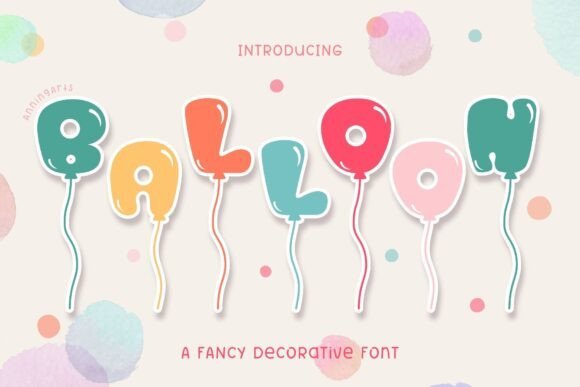
Pop into the World of Creativity with Balloon Font
Remember that moment when you were planning a birthday party for your little one and wanted to make the invitations truly special? You spent hours browsing through font options, trying to find the perfect one to match the festive atmosphere. And then, it hit you – the perfect combination of fun, colorful, and playful that would make the invitations stand out. This is where the Balloon Font comes into play, designed to bring a whimsical touch to your projects.
This adorable bubble-style balloon letter set is a game-changer for designers looking to add a playful twist to their designs. With the Balloon Font, you can create birthday invitations, party decorations, greeting cards, and kids’ designs that are sure to capture attention. Each letter mimics a colorful balloon with a cute string, making it perfect for adding a touch of magic to your projects.
- Unique Characteristics: Balloon Font features a distinctive, playful design with rounded shapes and a soft, whimsical feel, making it ideal for creative and informal applications.
Designer Review: Balloon Font
Overall, I’d say the Balloon Font has some really interesting characteristics that could work well for certain projects. ✨ The first thing that caught my attention is its unique, playful feel. The font is quite whimsical and could add a lot of personality to a design. I also appreciate how the font’s rounded shapes can help to soften the overall look of a text.
- ✨ The Balloon Font’s unique personality makes it perfect for projects that need a bit of whimsy, such as children’s books, party invitations, or social media graphics.
- ✨ The font is also quite versatile and can be used for both digital and print designs, making it a great choice for designers who work on a variety of projects.
However, I do have a few concerns about the font’s limitations. ⚠️ Firstly, the Balloon Font may not be the best choice for projects that require a more formal or professional tone. The font’s playful nature may come across as unprofessional in certain contexts.
- ⚠️ The font’s rounded shapes may also make it difficult to read at smaller font sizes, which could be a problem for projects that require a lot of text.
- ⚠️ Additionally, the font’s unique shape may not be easily legible for people with certain visual impairments, which is something to consider when choosing a font for a design.
Overall, I think the Balloon Font is a fun and creative choice for designers who are looking to add some personality to their projects. However, it’s essential to consider the context and potential limitations of the font before making a final decision.
Balloon Font is commonly used for:
- Wedding invitations and decorations.
- Business presentations and marketing materials.
- Illustrations and graphics for social media and websites.
Tips for Getting the Most Out of Balloon Font
Here are some tips to get the most out of Balloon Font:
- Use Balloon Font in combination with other creative elements, such as